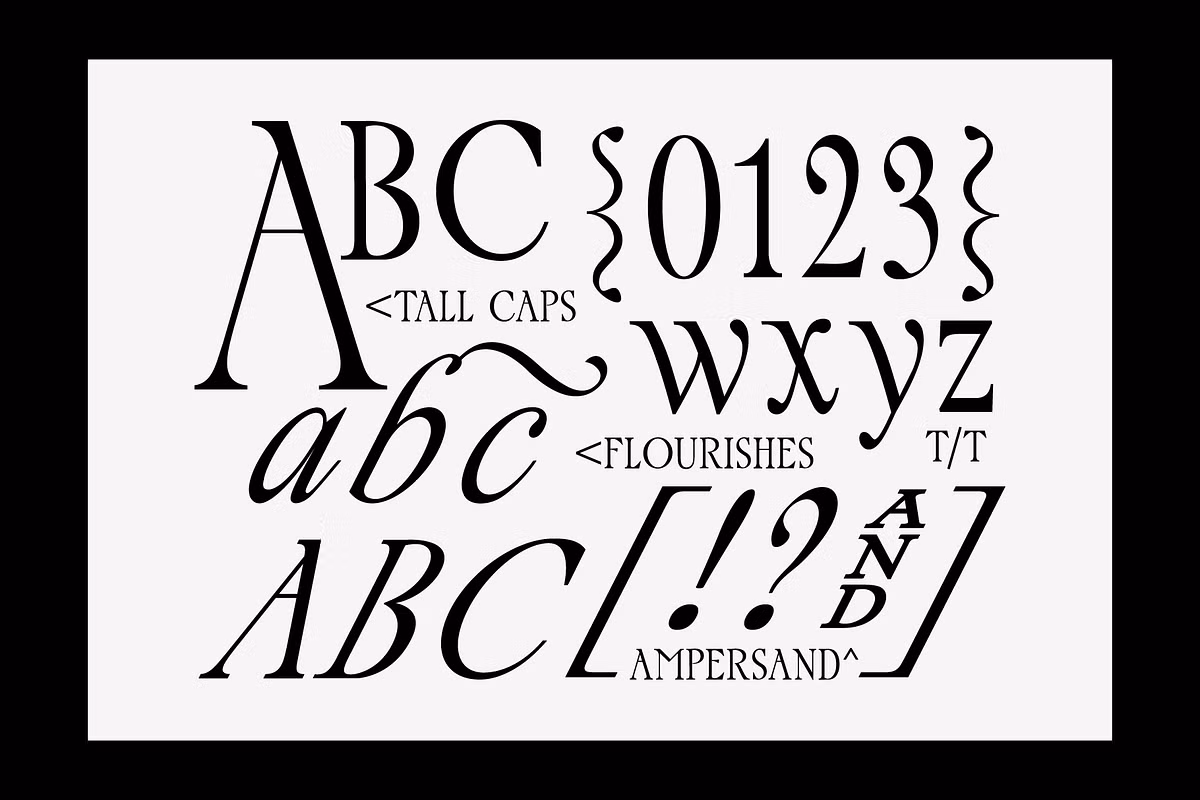
Palace Serif Typeface: Classic Serif Font with Elegant Flourishes
Introduction to Palace Serif Typeface
The Palace Serif Typeface is a serif font. The Palace Serif Typeface shows elegance and class, with decorations and alternate letters. The Palace Serif Typeface was made to feel vintage. The Palace Serif Typeface works well for design projects that need a look. The Palace Serif Typeface has capital letters and many characters. The Palace Serif Typeface is useful, for both printed work. I like the Palace Serif Typeface because the Palace Serif Typeface feels solid and clear.
Design Style of Palace Serif Typeface
The Palace Serif Typeface design style draws from serif typography. Adds modern flair. The font shows details that give the Palace Serif Typeface a feel and make the Palace Serif Typeface stand out among modern typefaces. The tall caps give the Palace Serif Typeface a look. Let the Palace Serif Typeface create strong headings and titles that draw attention. The vintage look of the Palace Serif Typeface works well for projects that want a feeling or a high quality look. When I use the Palace Serif Typeface I see the tall caps make my headings pop. The look feels classic.
Palace Serif includes italics and many catchwords that help the layout of a design. I like how Palace Serif’s smooth curves and clear lines fit together. Palace Serif gives a look that feels both old and new.
Character Sets and Glyphs
One of the strengths of the Palace Serif Typeface is the character set in the Palace Serif Typeface. The Palace Serif Typeface includes not Latin characters but also a wide range of non‑English glyphs. The Palace Serif Typeface provides characters such, as Ą, Á, Â, À, Ä, Å and many others. Those characters make the Palace Serif Typeface suitable, for projects. I have used the Palace Serif Typeface on projects that need languages. I appreciate the range of characters the Palace Serif Typeface offers.
The font includes ampersands, catchwords and other decorative bits. Those bits let you be creative. I can open the glyphs panel in the design software. See the range of characters. The glyphs panel shows the font’s potential. I can then make my designs.
Use Cases for Palace Serif Typeface
The Palace Serif Typeface is flexible. The Palace Serif Typeface fits tasks. The Palace Serif Typeface can be used in print on the web, in branding in design. Here are some ideal use cases, for the Palace Serif Typeface:
- Branding and Logos: With its classic and sophisticated style, Palace Serif is an excellent choice for branding projects, logos, and corporate identity designs.
- Invitations and Stationery: I use the font, for invitations and stationery. The font has curves. Those curves make the font good, for wedding invitations, business cards and other stationery items that need a class.
- Editorial Design: The Palace Serif Typeface works for magazines for books and, for brochures. The Palace Serif Typeface adds a charm. Makes reading better.
Pairing Suggestions for Palace Serif Typeface
I have found that pairing fonts, in typography creates contrast and improves the composition. I have found that pairing fonts with the Palace Serif Typeface adds interest. Here are some suggestions, for pairing the Palace Serif Typeface:
- With Sans-Serif Fonts: I pair Palace Serif with a clean sans-serif font such, as Montserrat or Open Sans. The fancy serifs of Palace Serif and the simple sans-serif together make a design.
- With Handwritten Fonts: I find that pairing Palace Serif with a font such, as Pacifico or Great Vibes works well. Palace Serif, with a font adds warmth and character to your designs.
- With Display Fonts: For headlines or promotional material pair Palace Serif, with display fonts. Palace Serif with display fonts makes a layout that draws the eye and holds attention. A font such as Bebas Neue adds a contrast, to Palace Serif. Bebas Neue makes the text easier to read.
The Palace Serif Typeface is a serif font. I have used the Palace Serif Typeface in my work. The Palace Serif Typeface mixes style letters with flexibility. The Palace Serif Typeface includes a set of characters. Lets you change many details. The Palace Serif Typeface works for design projects, such, as branding and editorial design. The Palace Serif Typeface has a vintage feel and the Palace Serif Typeface can make a design look more interesting. When I need a font that can handle both a logo and a long article the Palace Serif Typeface gives me the tools to adjust weight, spacing and style without having to switch to another font. I can pair the Palace Serif Typeface with fonts. Try different uses. I am a designer and a web developer. I have added the Palace Serif Typeface to my own font collection. I find the Palace Serif Typeface useful. Graphic designers, web developers and anyone who wants to improve typography can use the Palace Serif Typeface. The Palace Serif Typeface adds a style to the font collection you own.